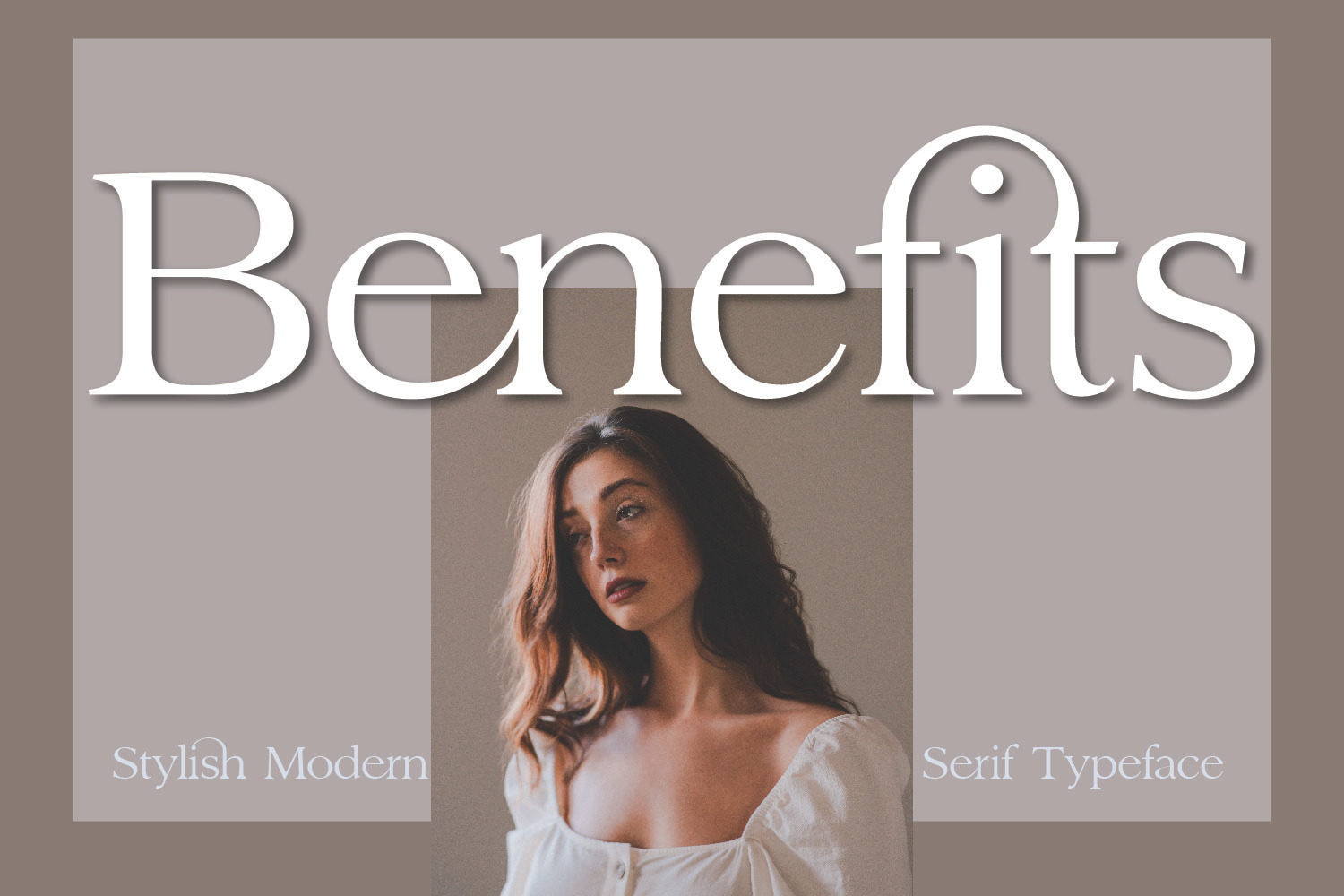
Benefits | Stylish Serif Typeface
Benefits font – a stylish OpenType rich serif with letters that seem to dance and twist harmoniously together – to form unique & elegant typography designs.
A large selection of interwoven Opentype ligatures and alternates, means ample selection and variety in your finished look.